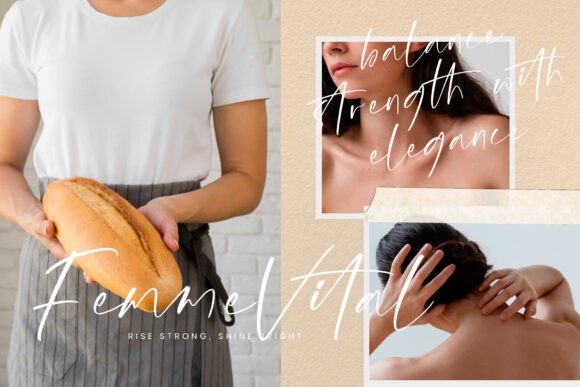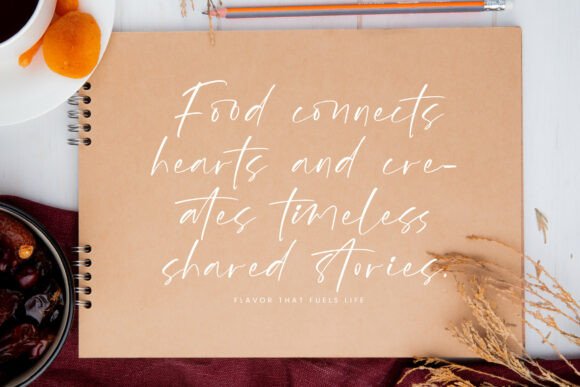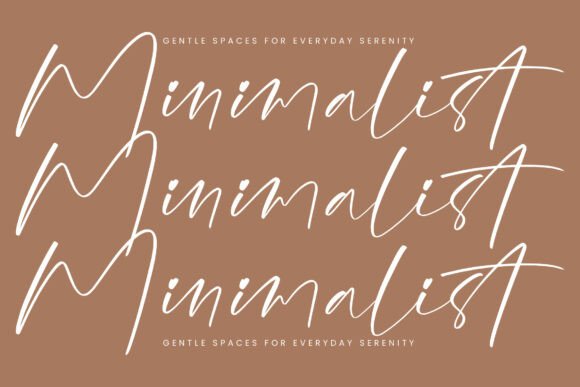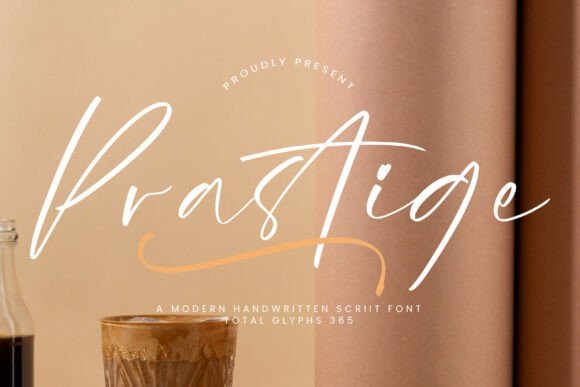
Introduction to Prastige Font
Prastige is a stylish script font that exudes elegance and contemporary charm.
Featuring graceful strokes, fluid curves, and carefully crafted letterforms, it captures the beauty of hand-drawn calligraphy with a modern twist Ideal for logos, invitations, packaging, and social media graphics, it adds a refined and sophisticated touch to any design.
Prastige Font offers exceptional quality and versatility, making it a valuable addition to your design toolkit. Whether you’re creating for personal projects or commercial use, Prastige Font delivers professional results.